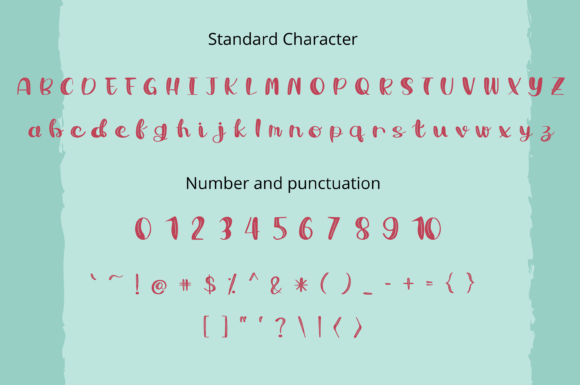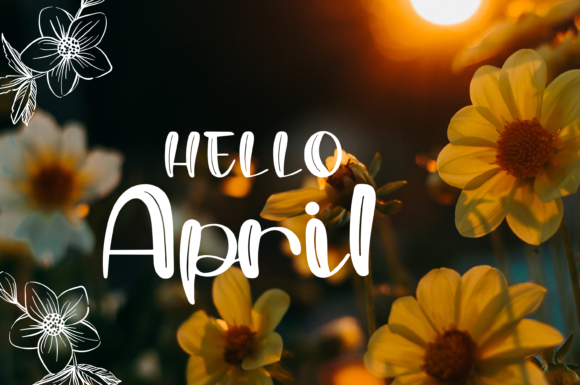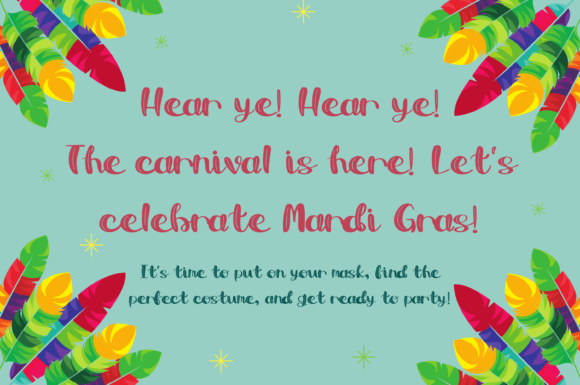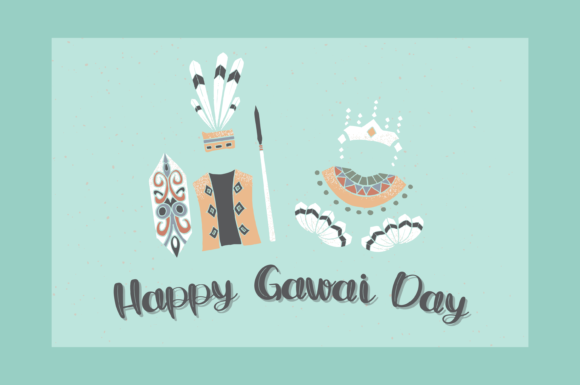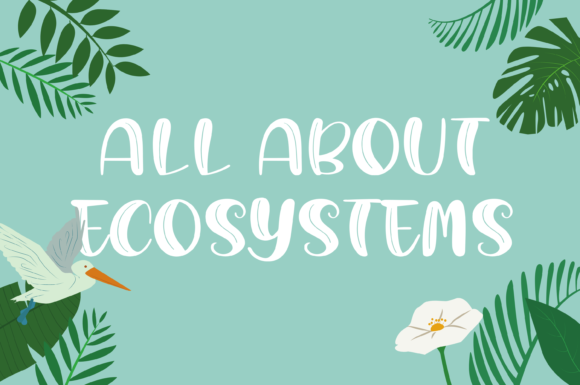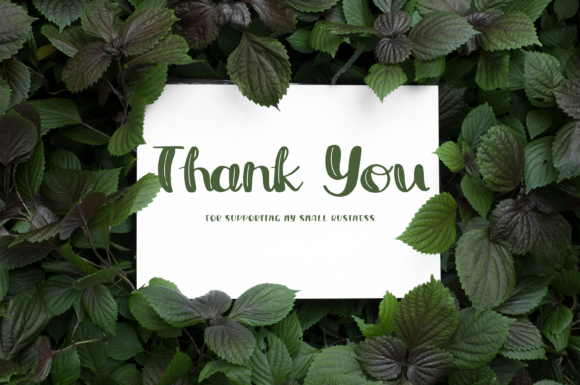
Feathery Delight Font
About Feathery Delight Font
Feathery Delight is a whimsical and clean handwritten font that brings a playful and charming touch to your creative projects. Its versatility allows it to seamlessly match an incredibly large set of design applications, making it a valuable addition to your font collection. Incorporate Feathery Delight into your creative ideas, and you’ll notice how it has the power to make them stand out with its unique and delightful style.
The whimsical nature of Feathery Delight is evident in its handwritten design, adding a sense of playfulness to your text. This makes it suitable for a wide range of projects where a whimsical and clean aesthetic is desired, such as in branding, invitations, quotes, or any design that benefits from a touch of charm.
Feathery Delight’s clean lines contribute to its readability and versatility, ensuring clarity in various design contexts. Whether you’re working on print materials or digital graphics, this font adapts effortlessly, allowing you to infuse a whimsical vibe into your creative endeavors.
As you incorporate Feathery Delight into your projects, you’ll discover its ability to stand out and capture attention. Its unique style adds a distinctive touch, making your designs memorable and visually appealing.
In summary, Feathery Delight is more than just a font; it’s a whimsical and clean handwritten typeface that enhances your creative projects. Whether used for branding, invitations, quotes, or other design applications, let Feathery Delight be the font that brings a playful and charming quality to your creations, making them stand out with a touch of delightful style.